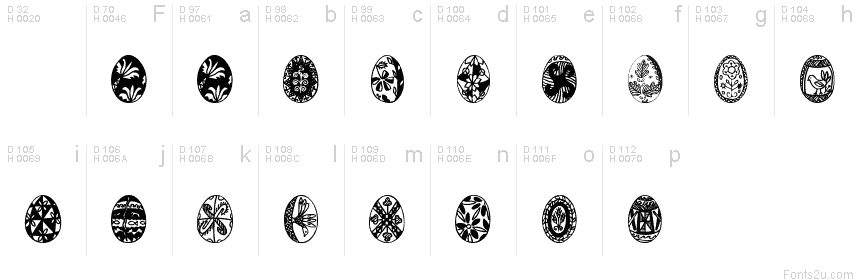
EasterTime
EasterTime font by Lime is a free dingbat typeface that turns every keystroke into a richly patterned Easter egg. Each symbol feels hand-stenciled and bold, with dense black fills and crisp white cutouts that suggest lace, folk art, and traditional egg painting all at once. The designs range from leafy florals to geometric bands, giving you an instant library of decorative icons without having to draw a single thing yourself.
Using EasterTime, you can quickly dress up Easter cards, party invitations, classroom worksheets, kids’ crafts, stickers, and seasonal social media graphics. The eggs hold their detail beautifully at larger sizes, so don’t be shy about scaling them up for posters or signage. This free font pairs nicely with a clean sans serif for text, letting the intricate egg motifs stay center stage while everything around them stays simple and readable.